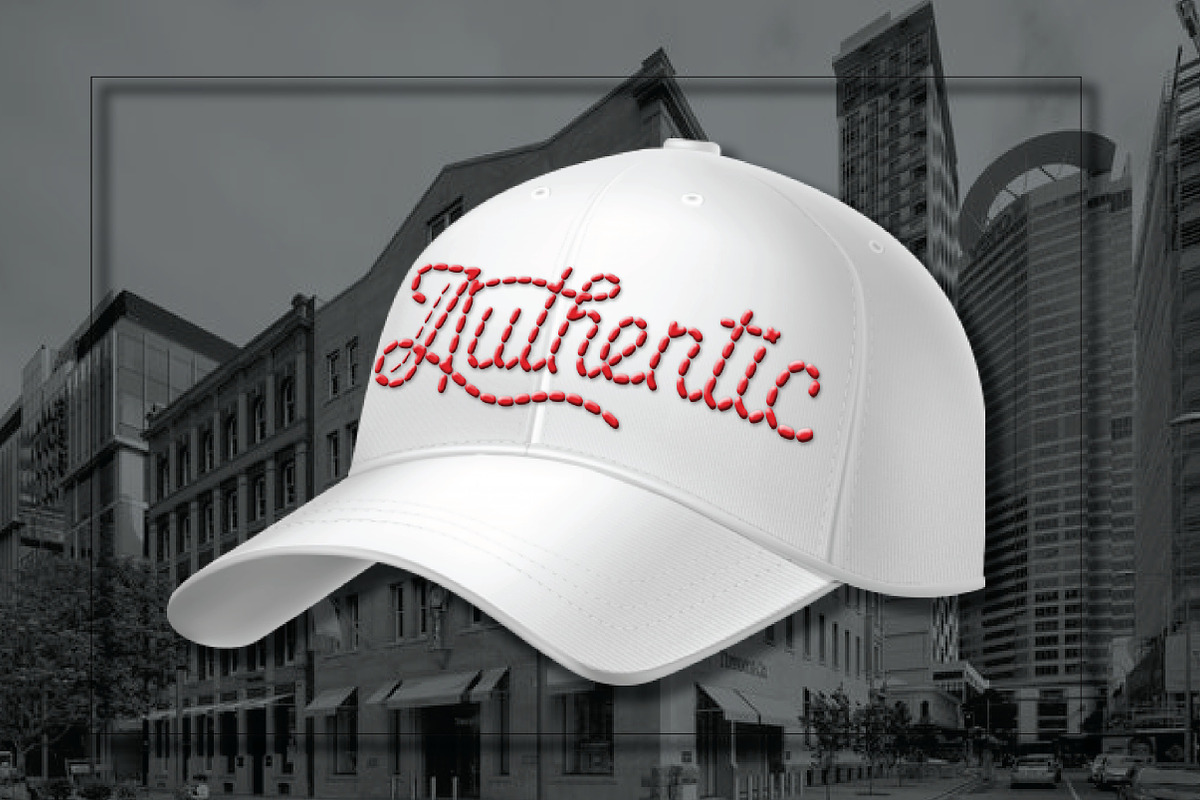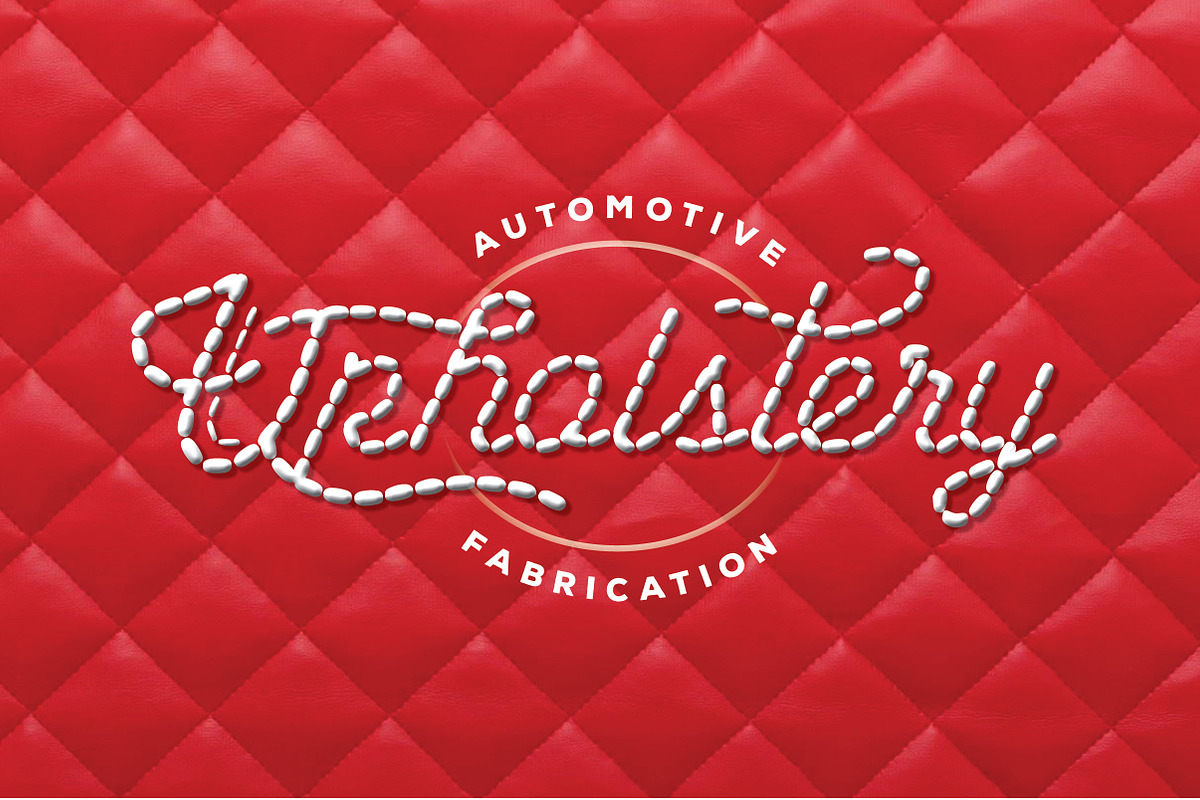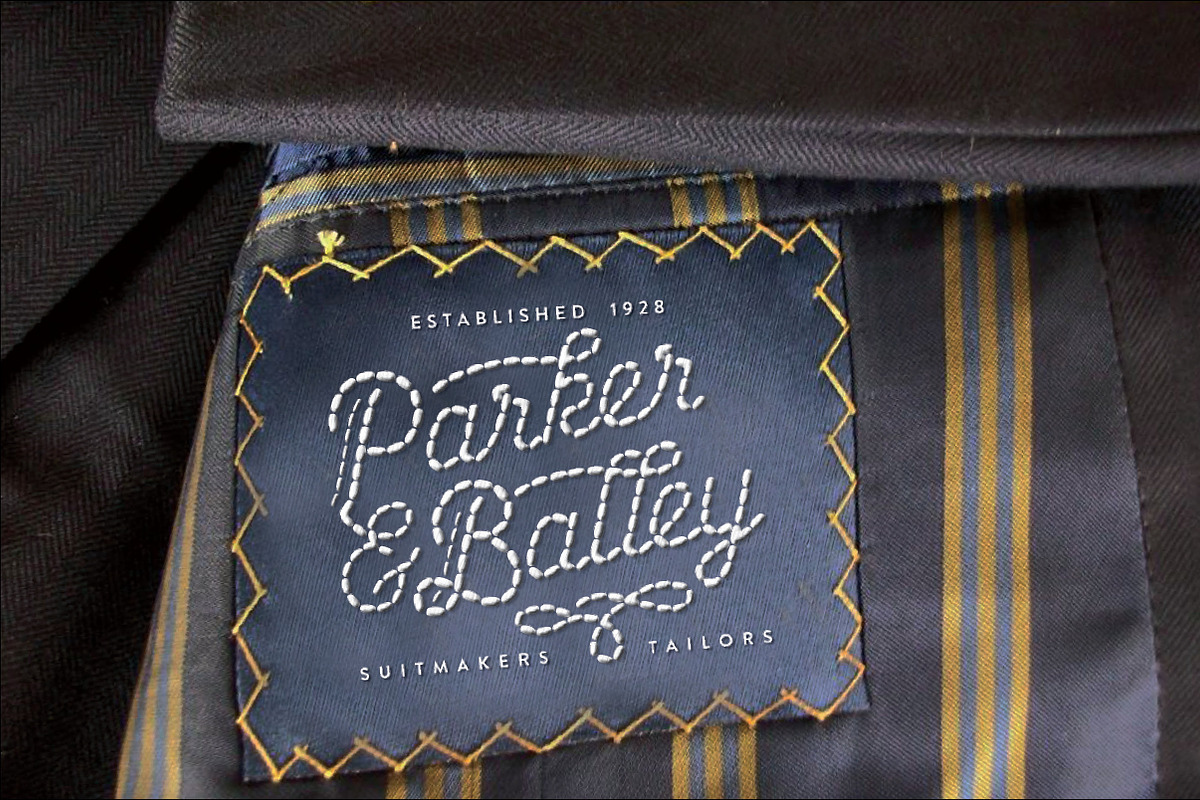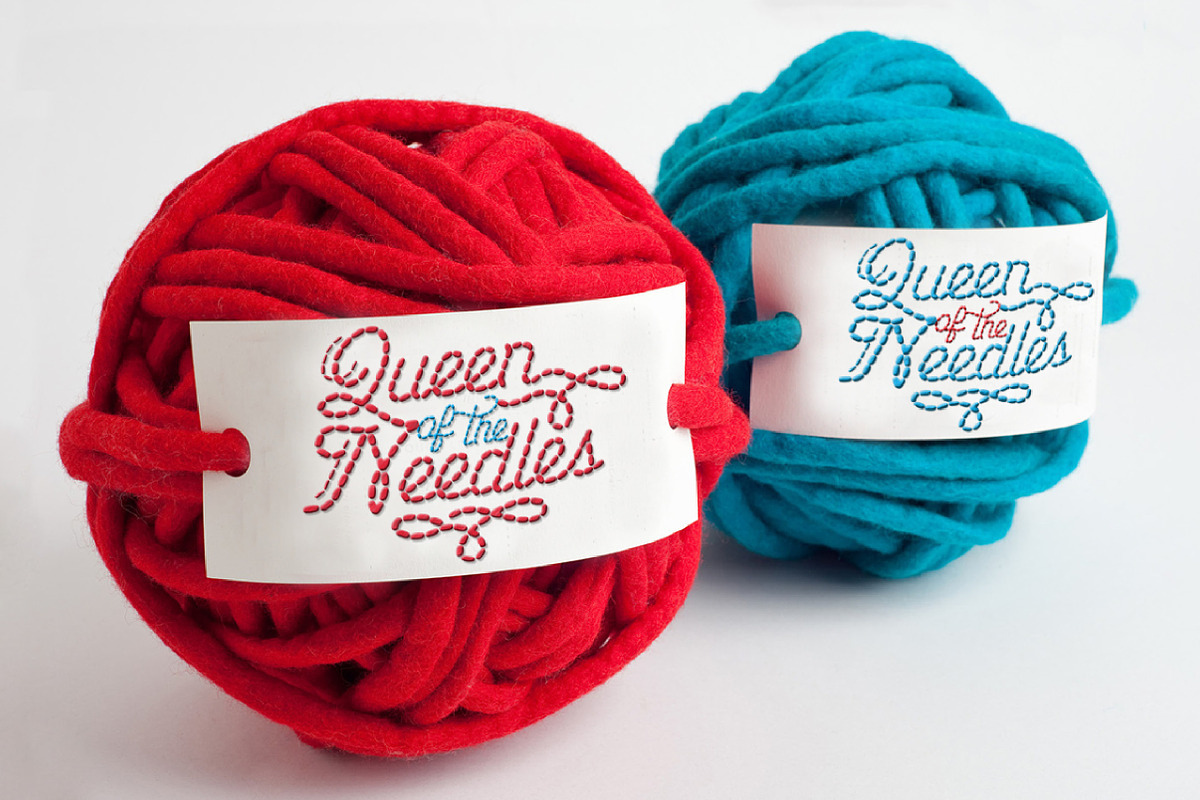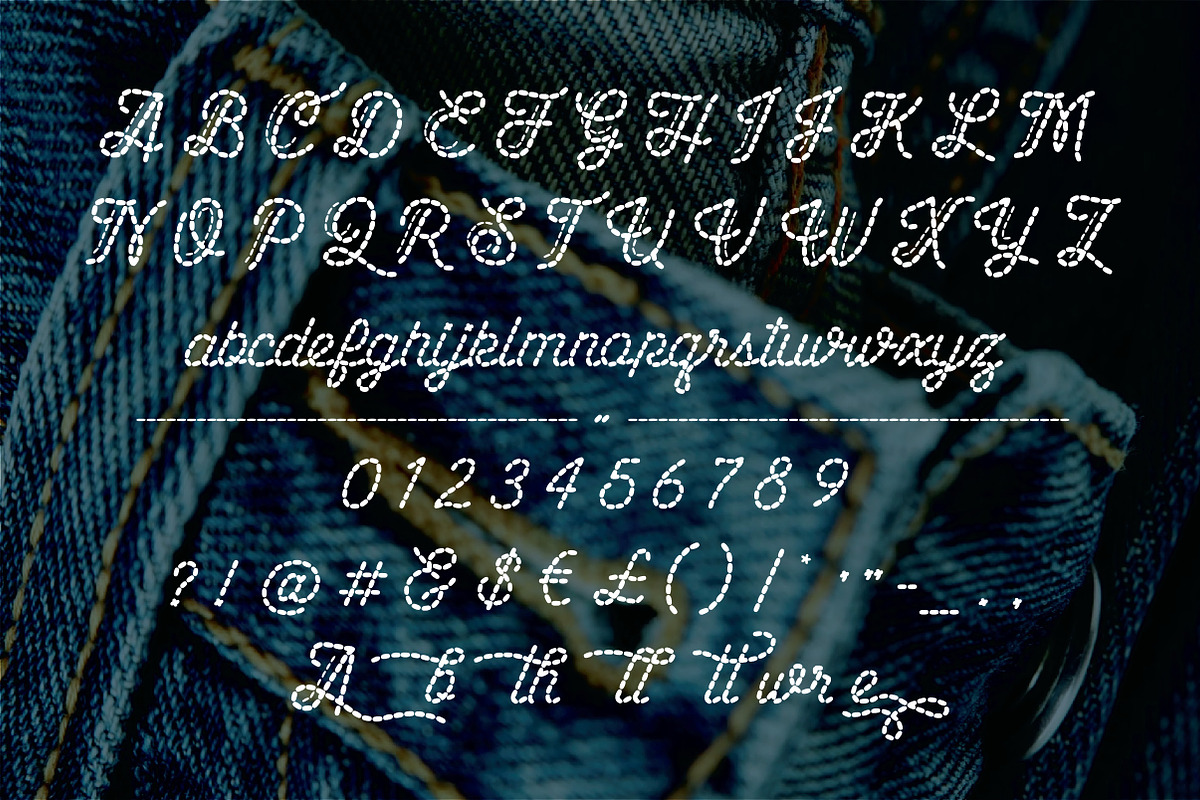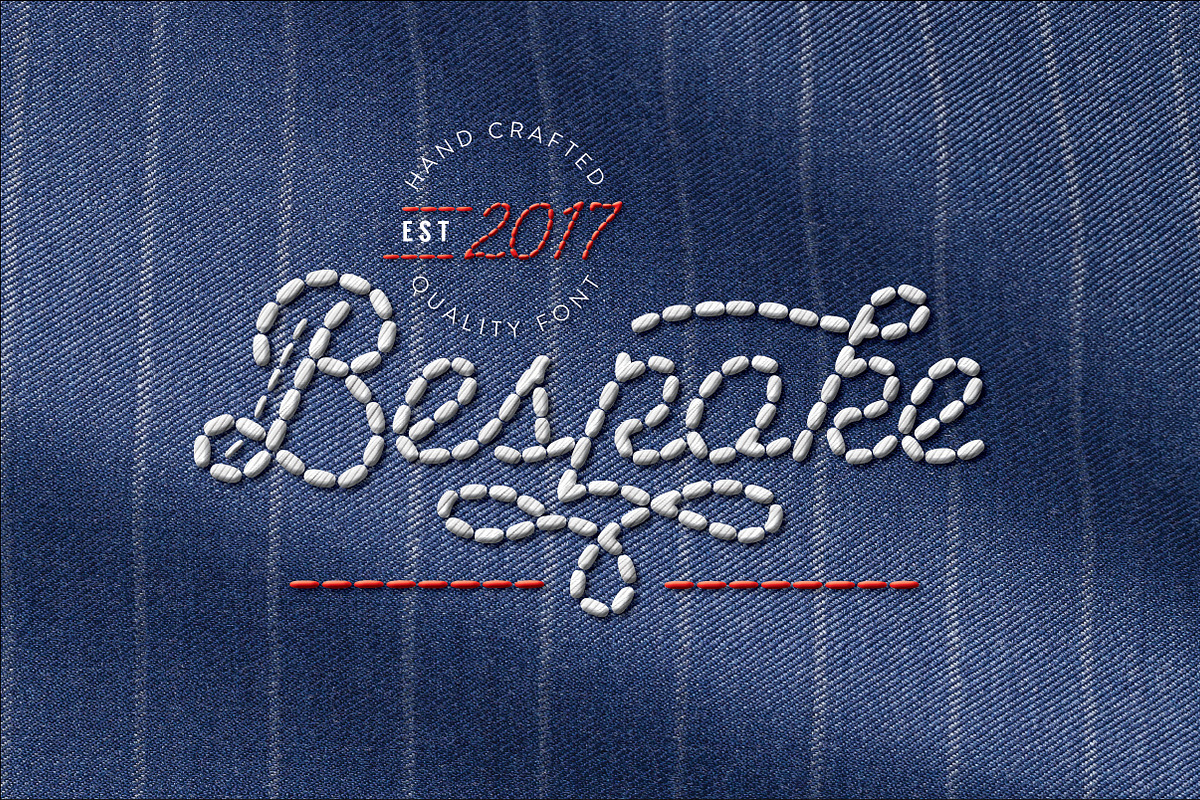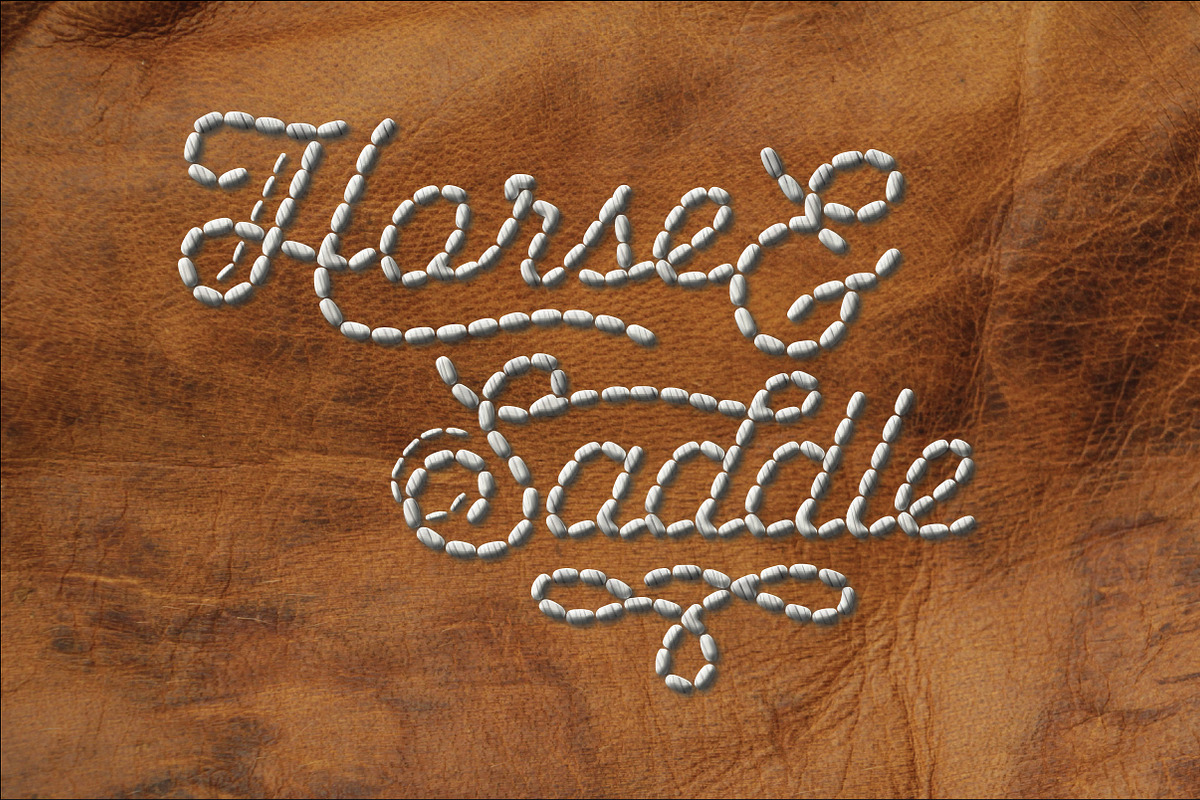
Bespoke. A Tailored Font
Bespoke Hand Crafted Font
Welcome to Bespoke, a high quality hand crafted typeface with a perfect balance of retro style and modern elegance.
Paying homage to the awe-inspiring art of stitching, embroidery and needle craft from tailored suits to street denim and everything in between, this instant classic font lets you tailor your own designs in exactly the same way.
Perfect for any project involving stitching or handcrafted manufacture – fabric, leather, fashion, tailoring, book binding, upholstery, automotive – the possibilities are endless.
Bespoke comes with beautifully crafted upper and lower case fonts plus a huge selection of alternates and ligatures in both upper and lower case, in TTF and OTF formats plus we have even included a texture panel to achieve the 'threaded' look shown in some examples.